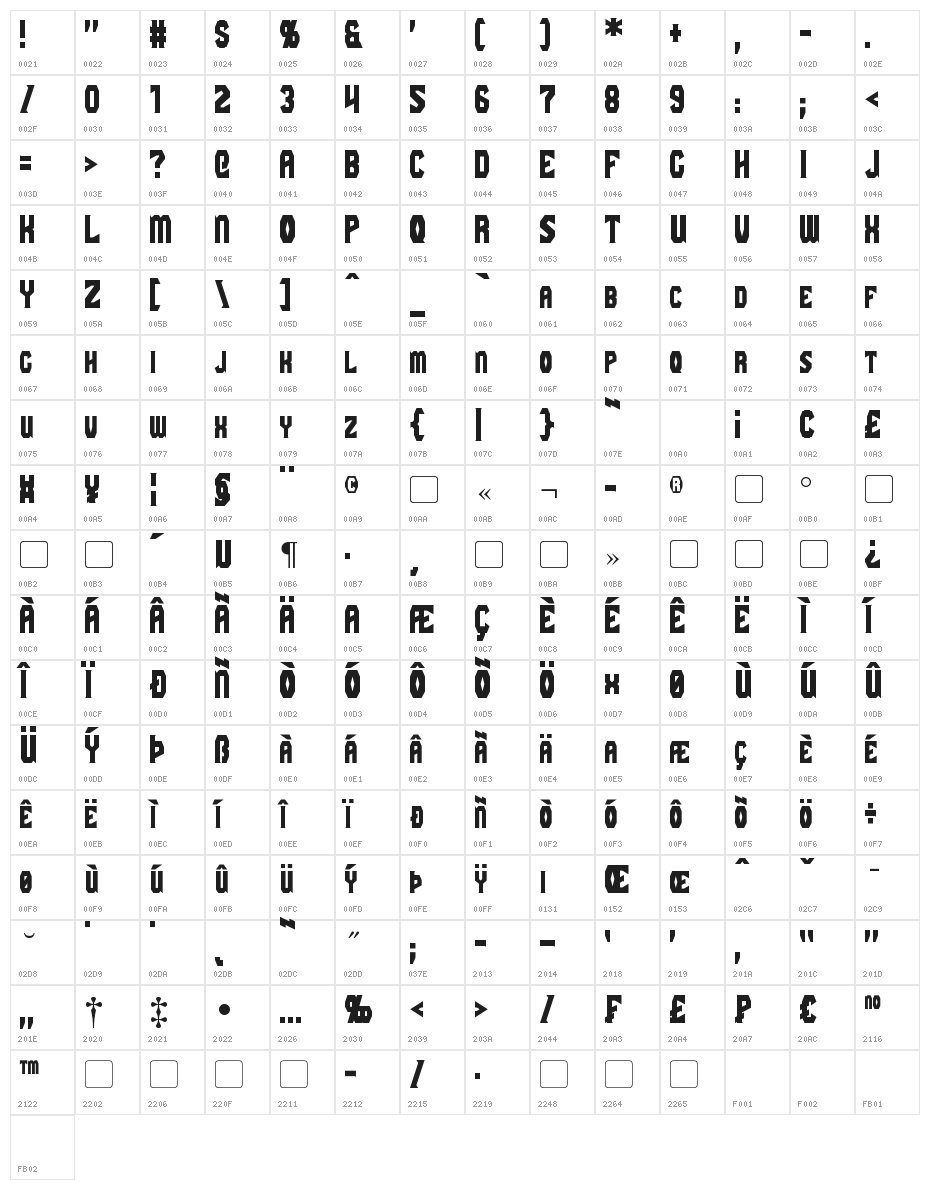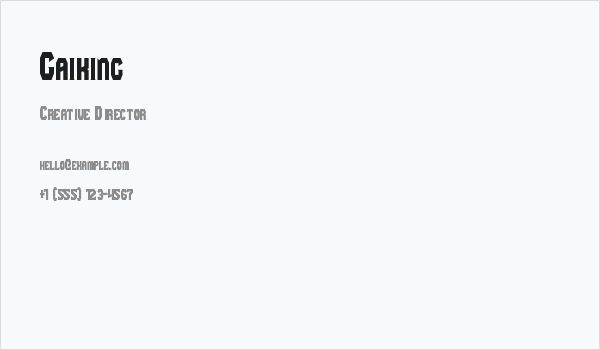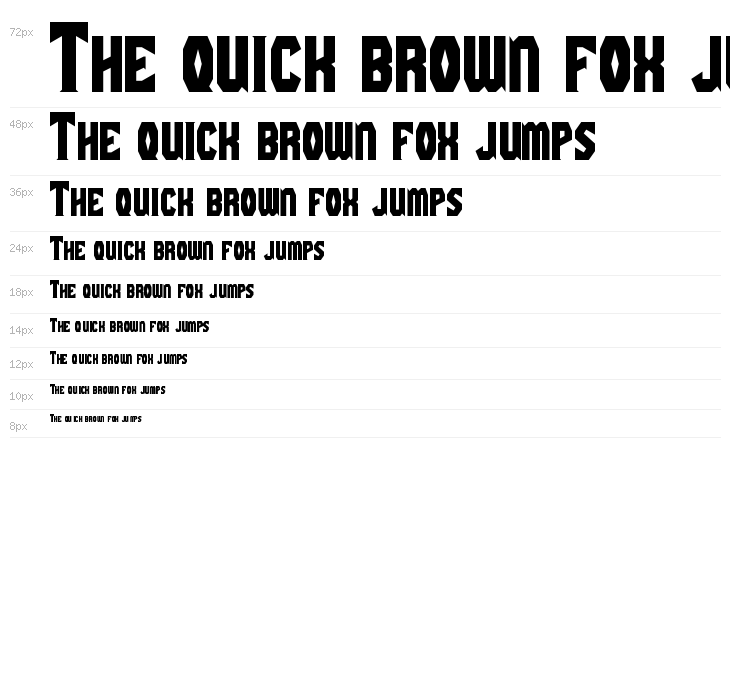
Gaiking Font
Gaiking Description
This font features a bold and geometric design with sharp, angular edges that give it a strong and commanding presence. The uppercase letters are particularly striking, with a blocky appearance that suggests strength and stability. The lowercase letters maintain the same angular style, ensuring consistency throughout. Numbers and special characters are designed with the same boldness, making them stand out effectively. The overall look is reminiscent of a futuristic or industrial theme, making it suitable for projects that require a modern and edgy aesthetic.
| Proposed Projects | Ideal for use in video game titles, movie posters, branding for tech companies, or any project needing a modern, industrial look. |